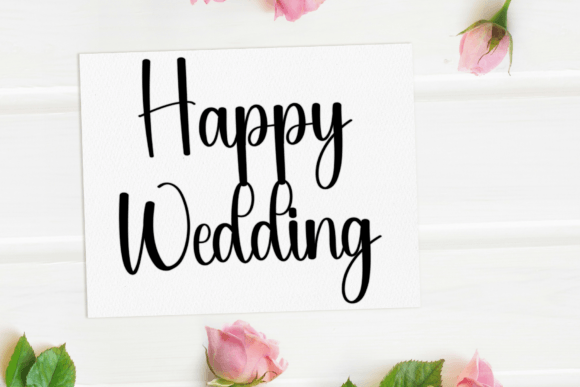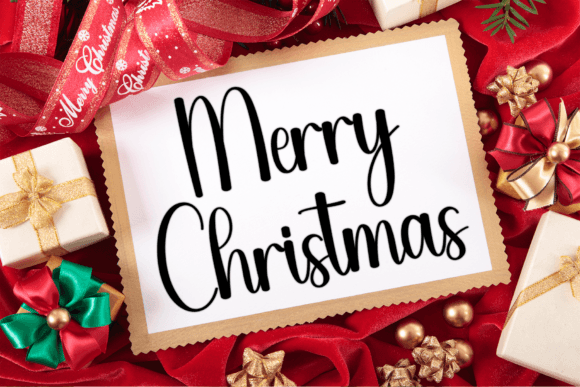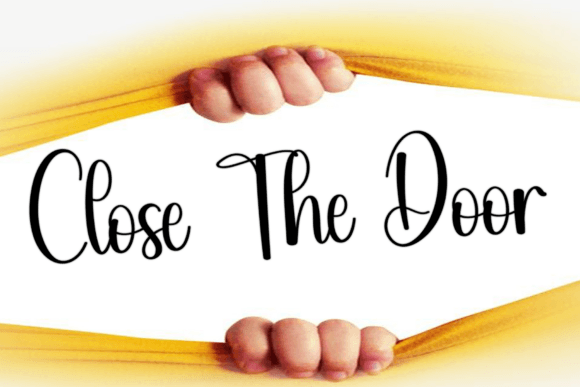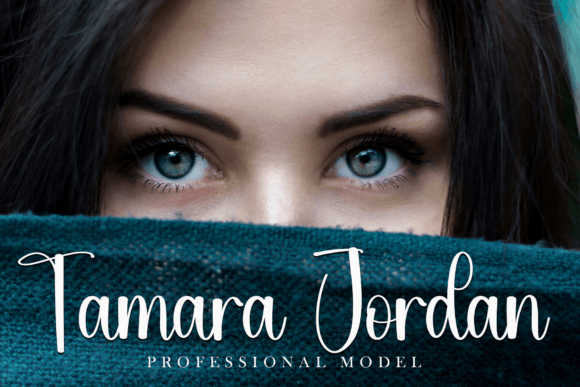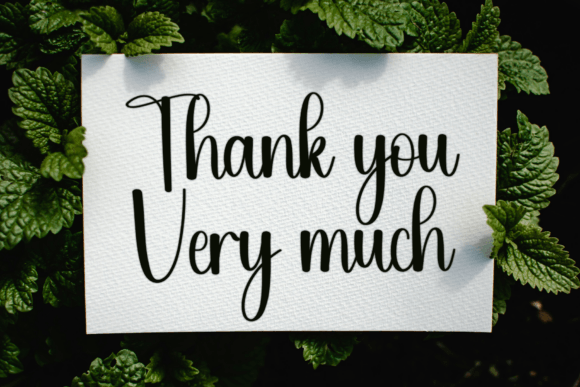
Introducing Farmhouse Font: A Delightful Handwritten Font with Warmth and Personality
In the world of typography, fonts play a crucial role in conveying emotions and setting the tone for a design. For designers and crafters looking for a font that exudes warmth, personality, and a touch of whimsy, Farmhouse Font is an excellent choice. This delightful handwritten font is imbued with a sense of authenticity and charm, making it perfect for a variety of design projects.
The Characteristics of Farmhouse Font
Farmhouse Font is a handwritten font that boasts whimsical strokes and varied letterforms. Its unique characteristics make it stand out from other fonts, adding a touch of personality to any design. The font’s irregularities and imperfections give it a handmade feel, evoking a sense of nostalgia and warmth.
One of the key features of Farmhouse Font is its ability to convey heartfelt messages. The font’s charming and authentic feel makes it perfect for designs that require a personal touch. Whether you’re creating invitations, greeting cards, or branding materials, Farmhouse Font is sure to add a touch of warmth and personality to your design.
Uses of Farmhouse Font
Farmhouse Font is a versatile font that can be used for a variety of design projects. Here are some of the ways you can use this delightful font:
- Invitations: Farmhouse Font is perfect for creating invitations for special occasions such as weddings, baby showers, and birthday parties. The font’s whimsical strokes and varied letterforms add a touch of elegance and sophistication to your invitations.
- Greeting Cards: The font’s charming and authentic feel makes it ideal for creating greeting cards for various occasions. Whether you’re creating a card for a birthday, anniversary, or holiday, Farmhouse Font is sure to add a personal touch.
- Branding: Farmhouse Font can also be used for branding purposes. The font’s unique characteristics make it perfect for creating logos, labels, and packaging materials that require a personal touch.
- Digital Designs: The font can also be used for digital designs such as social media graphics, blog posts, and website headers. Its clear and readable design makes it perfect for digital applications.
Benefits of Using Farmhouse Font
There are several benefits to using Farmhouse Font in your design projects. Here are some of the advantages of using this delightful font:
- Unique and Eye-Catching: Farmhouse Font is a unique and eye-catching font that is sure to grab attention. Its whimsical strokes and varied letterforms make it stand out from other fonts.
- Emotional Connection: The font’s charming and authentic feel creates an emotional connection with the reader. It’s perfect for designs that require a personal touch.
- Versatile: Farmhouse Font is a versatile font that can be used for a variety of design projects. Its clear and readable design makes it perfect for both digital and print applications.
Here are some tips for using Farmhouse Font in your design projects:
- Pair with Other Fonts: Farmhouse Font can be paired with other fonts to create a unique and eye-catching design. Try pairing it with a sans-serif font for a modern look.
- Use for Headings: The font’s whimsical strokes and varied letterforms make it perfect for headings and titles. Use it to add a touch of personality to your design.
- Experiment with Colors: Farmhouse Font can be used with a variety of colors to create a unique and eye-catching design. Experiment with different colors to find the perfect combination for your design.
In conclusion, Farmhouse Font is a delightful handwritten font that is perfect for designers and crafters looking for a font that exudes warmth, personality, and a touch of whimsy. Its unique characteristics, versatility, and emotional connection make it an excellent choice for a variety of design projects. Whether you’re creating invitations, greeting cards, or branding materials, Farmhouse Font is sure to add a touch of warmth and personality to your design.